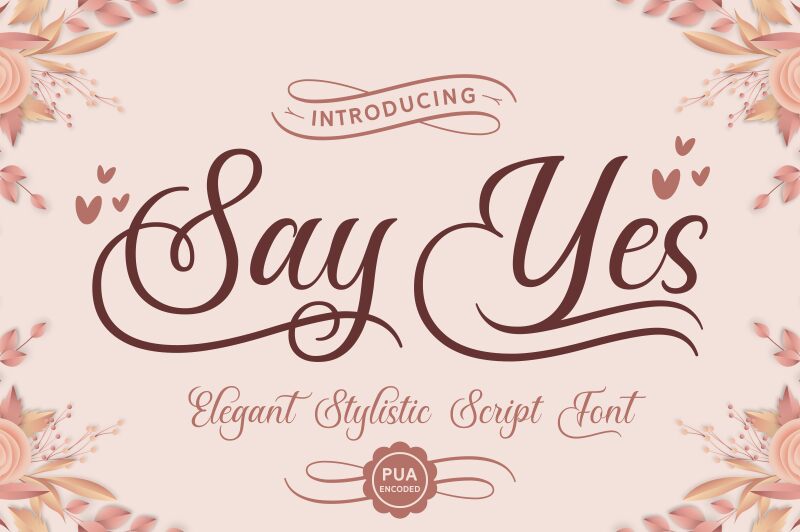
Say Yes
Say Yes, a captivating calligraphy font by Situjuh Nazara, exudes elegance and grace. With its semi-light weight, this font adds a touch of sophistication to any project. Perfect for wedding invitations, greeting cards, and elegant branding materials, Say Yes will elevate your designs with its fluid strokes and graceful curves. Whether you're designing a romantic event poster or creating stunning social media graphics, Say Yes is the ideal choice for projects that demand an air of refined beauty. Let this enchanting font make your designs truly unforgettable.